Calligraphy, or the art of beautiful handwriting, is one of the oldest and most popular forms of visual art and communication; dating all the way back to 600 BC and ancient Roman times. Since then, calligraphy has evolved into all kinds of styles, as you’ll see by this sampling of our favorite calligraphy fonts.
1. La Sonnambula
La Sonnambula falls under the umbrella of cursive calligraphy fonts. With its long, sweeping lines and light spacing between letters, La Sonnambula is an excellent choice for almost any calligraphy project.
2. Children of the Starlight
Children of the Starlight is another of the cursive calligraphy fonts and is characterized by bolder “brush stroke” type letters with shading. Shading in calligraphy can be achieved by manipulating the pen or calligraphy tool with differing amounts of pressure within each stroke.
3. Congrats Calligraphy
This is a fun calligraphy font that incorporates looped shapes within the capital letters. Cursive calligraphy fonts are often distinguished from one another by these types of nuances, and Congrats Calligraphy is no exception! It’s beautiful, elegant, and appropriate for a variety of calligraphy art.
4. Honilad
Honilad may look familiar to you, as it is a very popular style and considered to be one of the best calligraphy fonts around. The key characteristics of this calligraphy font are bolded strokes within the formation of each letter and lighter strokes connecting letters and completing letter details.
5. Walking Stones
Walking Stones is another popular and versatile calligraphy font. Letters are tall and thin, and spacing is sparse between each letter. It’s a lightly bolded font that is perfect for both serious and lighthearted projects.
6. Black Chancery
This printed calligraphy font is reminiscent of calligraphy’s origins in block script lettering. It is styled after brush strokes, showing variations in thickness within each letter, and it’s a bit of a more serious font. You might find Black Chancery in logo work or in apparel screen printing.
7. Acryle Script
Acryle Script is fun, whimsical, and easily one of the best calligraphy fonts! This font incorporates loops, lines crossing, and varying levels of boldness to render a design that works just as well for a birthday celebration invitation as it does for commercial advertising campaigns.
8. Affectionately Yours
Affectionately Yours is one of the most beautiful easy calligraphy fonts. It is a great font for beginners and seasoned calligraphers alike, and it allows for an added layer of fun through the use of shapes, such as the hearts displayed within the image above.
9. Dillon the Cat
Dillon the Cat is a bolder-style cursive calligraphy font that works in just about every context. With its thicker, more forgiving lines and easy-to-mimic curves, this is also great for newer calligraphers who are looking for practice fonts.
10. Eleganta
Eleganta is, as the name suggests, one of the most elegant calligraphy fonts. Similar to “Affectionately Yours,” Eleganta allows for the addition of shapes and loops to enhance not only each letter but also the overall design of words created with this font.
11. Feel My Heart
Feel My Heart is a beautifully fanciful calligraphy font with no shortage of curly-cues and looped lines. Almost resembling a beloved grandmother’s handwriting, this font is perfect for calligraphers who want to elicit a bit of emotion within their work.
12. Haruka
When it comes to easy calligraphy fonts, Haruka is as playful and fun as they come! This font does not require perfectly straight lines or clean connections between letters but rather, invites the artist to be creative with their strokes and to play with boldness to create anything from a graphic novel title to a kitchen canister label.
13. Italianno Regular
Italianno Regular is a more traditional cursive calligraphy font marked by consistent strokes and light italicization. It, too, is a great font for both beginners and seasoned calligraphy artists because it is so uniform in design, yet still lovely to view!
14. Millythea
Millythea is a wonderful example of calligraphy fonts that use line ornaments. This design element allows the calligrapher to have a bit more creative license within their work and to include something that is perhaps unexpected.
15. Brayden Script
Brayden Script the type of calligraphy font that works well for everything from book cover art to store signage. It uses thin lines, which are typically easier both to create and to read, and renders a lovely result!
16. Phraell
Phraell is a more advanced calligraphy font characterized by bold, italicized lines and thinner letters with clear connections. It is appropriate for a variety of scenarios and work, and it is best created with traditional calligraphy pens and tools or in a digital setting.
17. Monsieur La Doulaise
This elaborate calligraphy font is deeply rooted in traditional style. Monsieur La Doulaise is intricate and heady, with very little bold and lots of curved lines, and is most often seen in wedding invitations or other formal texts.
18. Oregano
Oregano is a printed calligraphy font that is fun and straightforward. Most of the personality of this font lies within the fun curved style of each letter, and the exaggerated accents at the apex of rounded letters, such as the lowercase g above.
19. Transatlantic Cruise
Transatlantic Cruise is a unique calligraphy style that uses seemingly simple letter outlines to make a big statement. The serifs and details of each letter are created singularly but the letters themselves are formed with tandem lines that render beautifully.
20. Canela Bark
This calligraphy font appears a hybrid between script and printed fonts. Not all lines are connected between the letters, and it is only slightly bolded. Canela Bark would be a great choice for a restaurant menu or for website design.
21. Distant Stroke
Distant Stroke is a printed font that falls within the category of “easy calligraphy fonts.” Though it seems a bit complicated at first glance, a closer look shows that the letters are created with long strokes and thin lines that are simple to recreate, whether you’re brand new to calligraphy or you’ve been working with calligraphy fonts for years.
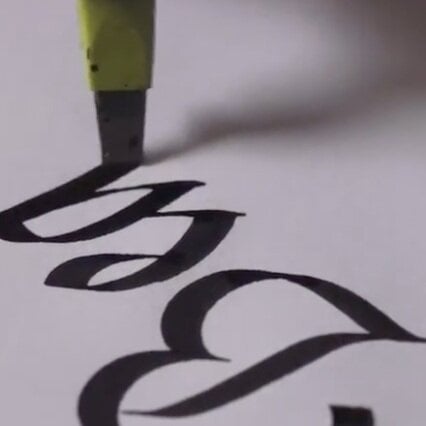
Want to Try Your Hand at Calligraphy?
Calligraphy Essentials: From First Script to Final Flourish
More About Calligraphy
Now that you’ve familiarized yourself with different types of calligraphy fonts, you’re sure to have questions about how to begin and how to learn more.
Which is the Best Font for Calligraphy?
While the answer to this question is largely based upon the individual artists, most calligraphers prefer script fonts. The letters are generally formed with broader, longer strokes, and you won’t need a lot of special tools or pens to create these fonts—a simple nib pen will do.
Bryn Chernoff’s Skillshare course, Calligraphy II: Finding Your Personal Script Style is a great resource for finding your own style and identifying the best calligraphy fonts for you.
What is the Prettiest Cursive Font?
This question, again, is best answered by each artist and their personal style, but there are endless cursive calligraphy fonts from which to choose. Whether you tend toward something more traditional, like Italianno Regular, or something more whimsical, like Acryle Script, you’re sure to create something beautiful.
Skillshare instructor Mary-Jane Roussel offers two courses in French Cursive Calligraphy —covering both lowercase letters and uppercase letters—that are an excellent starting point for those calligraphers looking to explore cursive fonts.
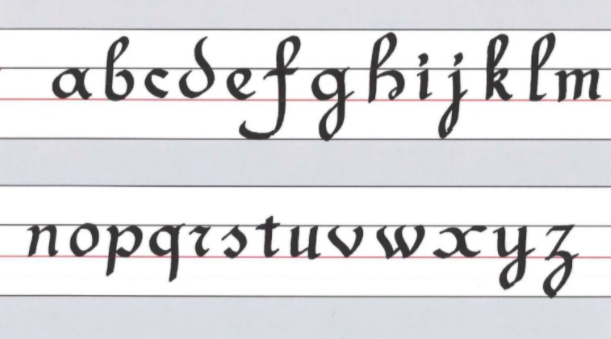
How Do You Write Words in Calligraphy?
Writing words in calligraphy style fonts is not nearly as difficult as it seems—you just need to practice. The best way to begin is by studying easy calligraphy fonts and trying to replicate them, letter by letter. Once you have a mastery of one font, it is easy to move on and expand your work into other calligraphy fonts and designs.
Jackson Alves, Skillshare instructor, teaches a great course called Calligraphy for Beginners 1—The Foundational Styles of Calligraphy. Covering everything from how to hold your pen to how to form letters, the course is an excellent point of origin for writing words in calligraphy.
Whether you’ve been working in calligraphy for as long as you can remember or you’re a brand new calligrapher, it never hurts to have a few (or 21) favorite calligraphy fonts to call upon when you sit down to work. Just remember not to be too rigid—part of the fun in calligraphy is the wide margin for creativity and finding your own style!